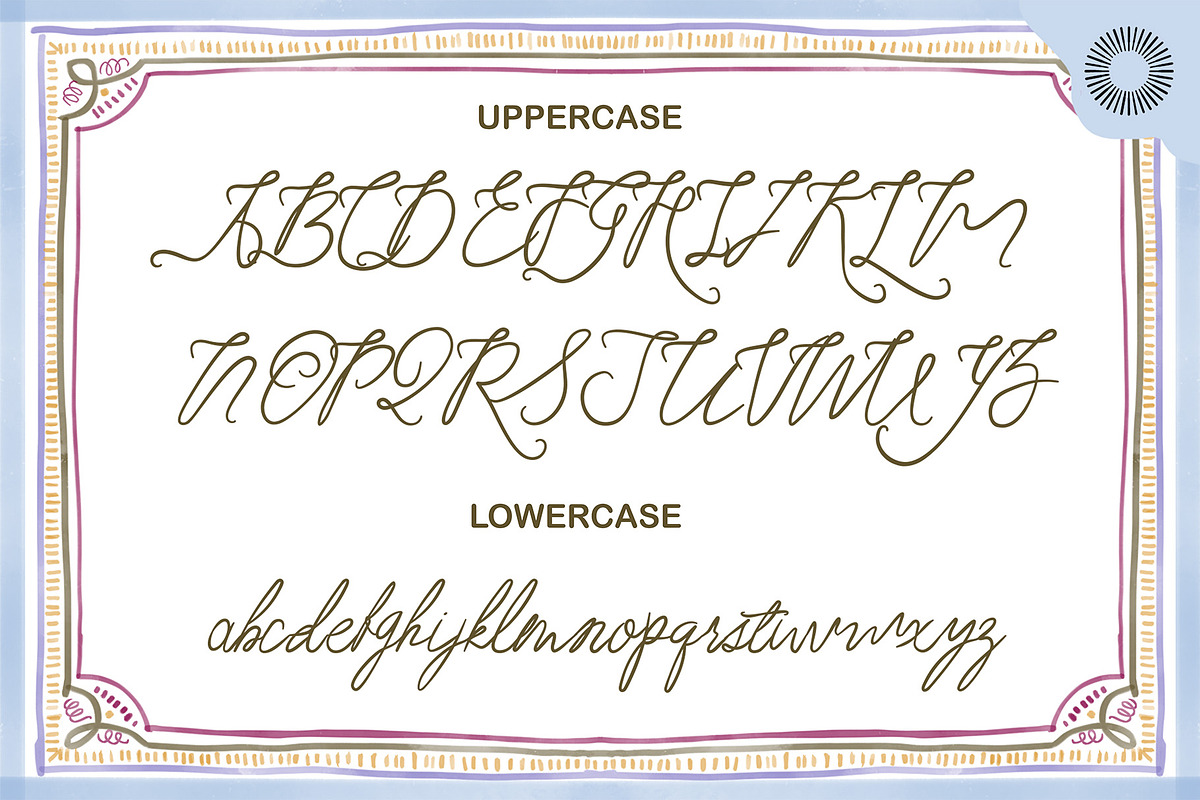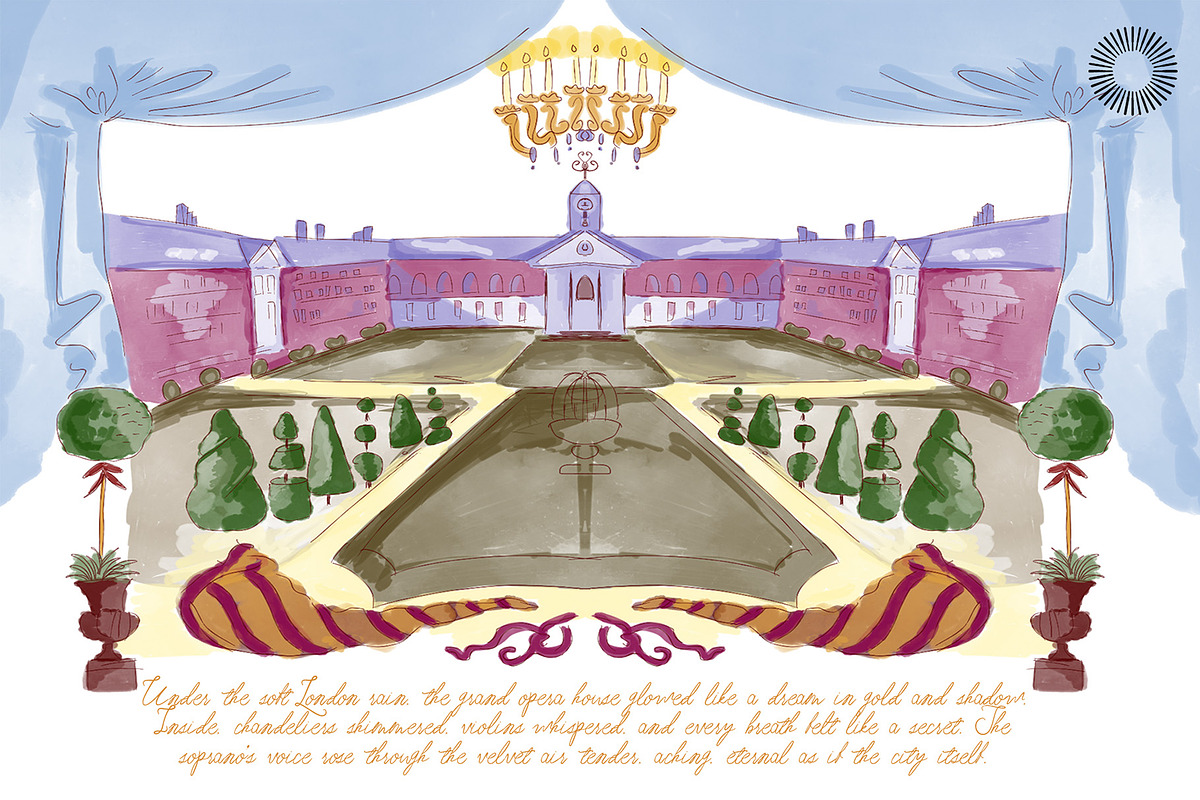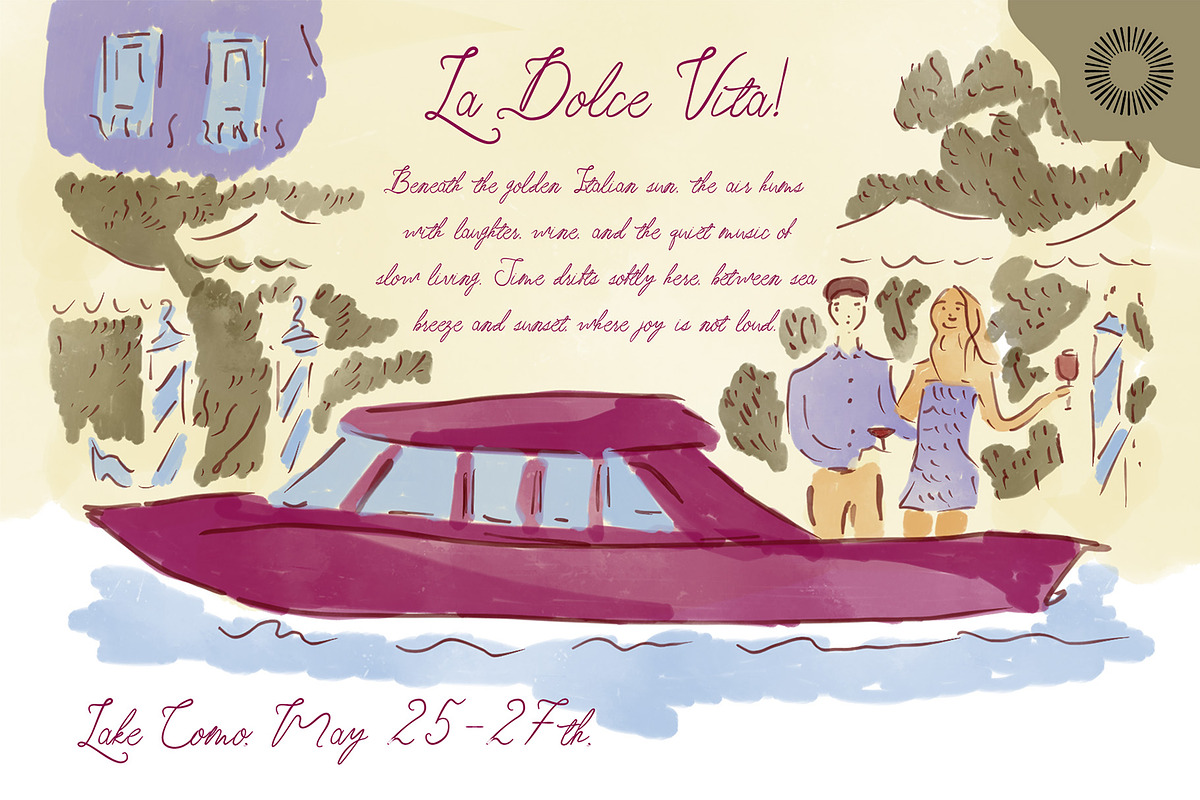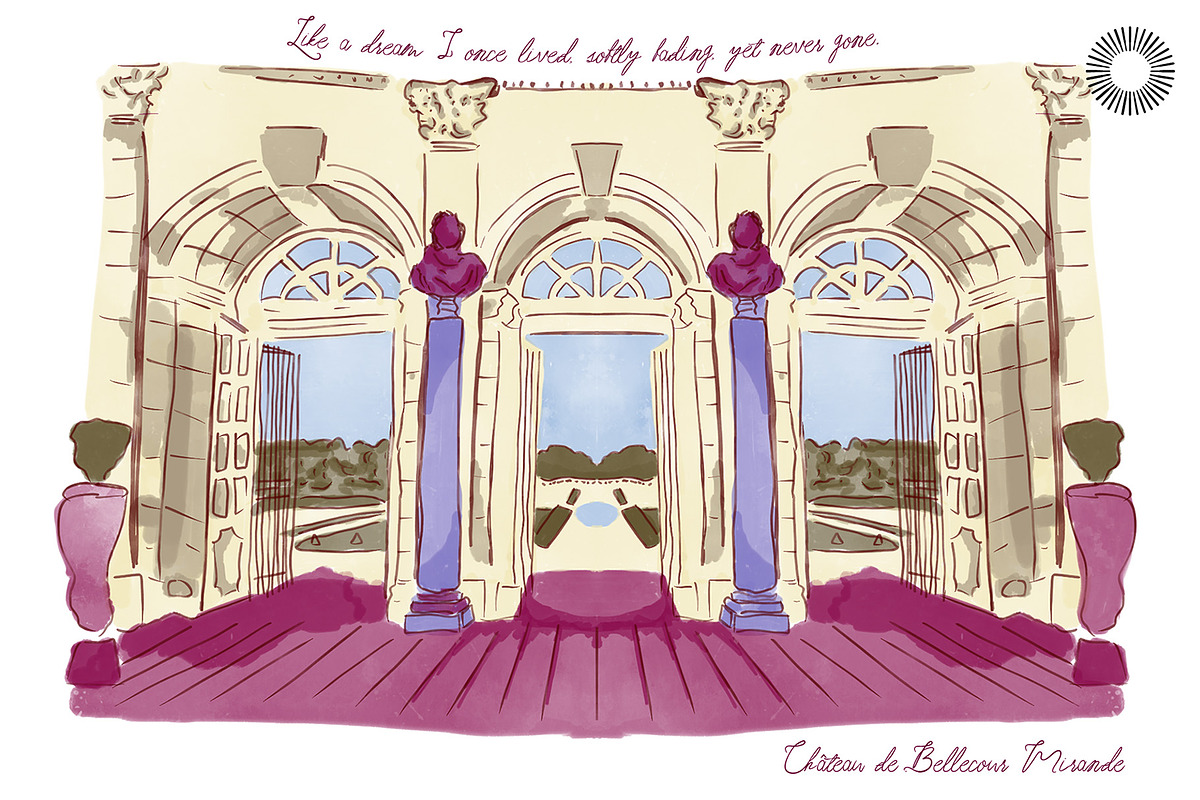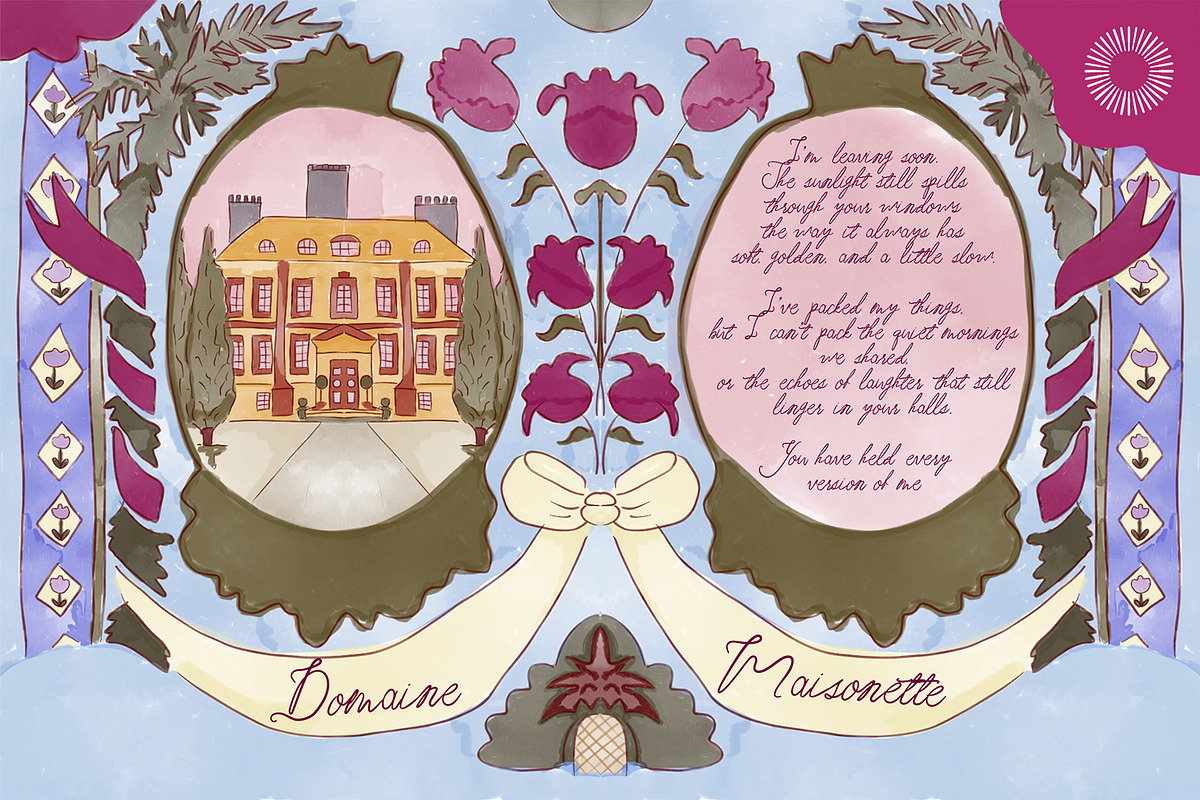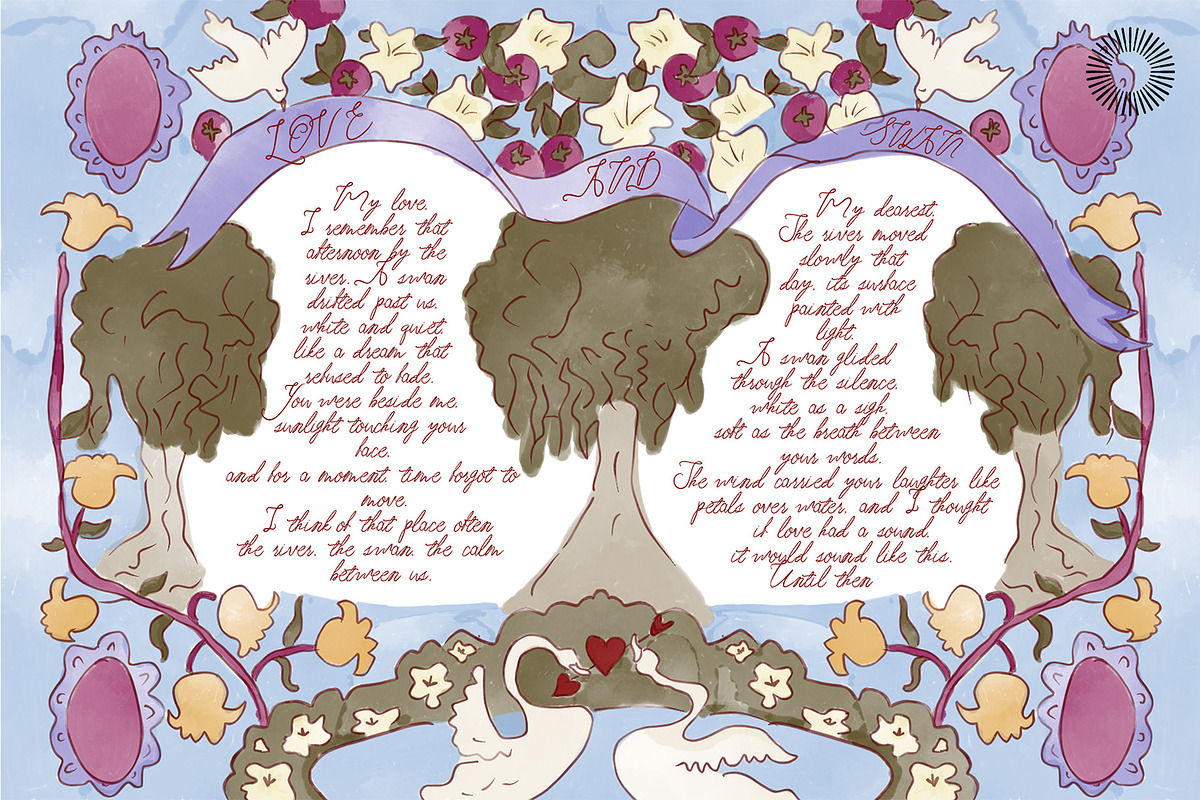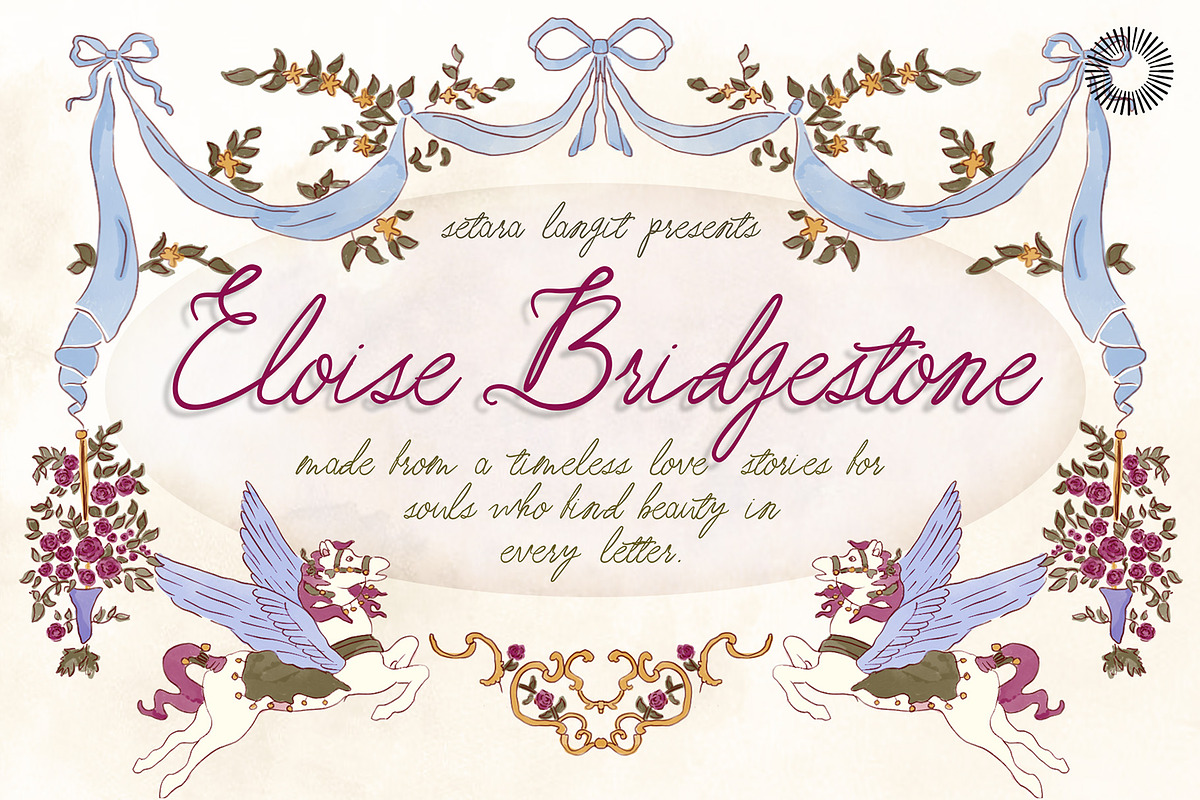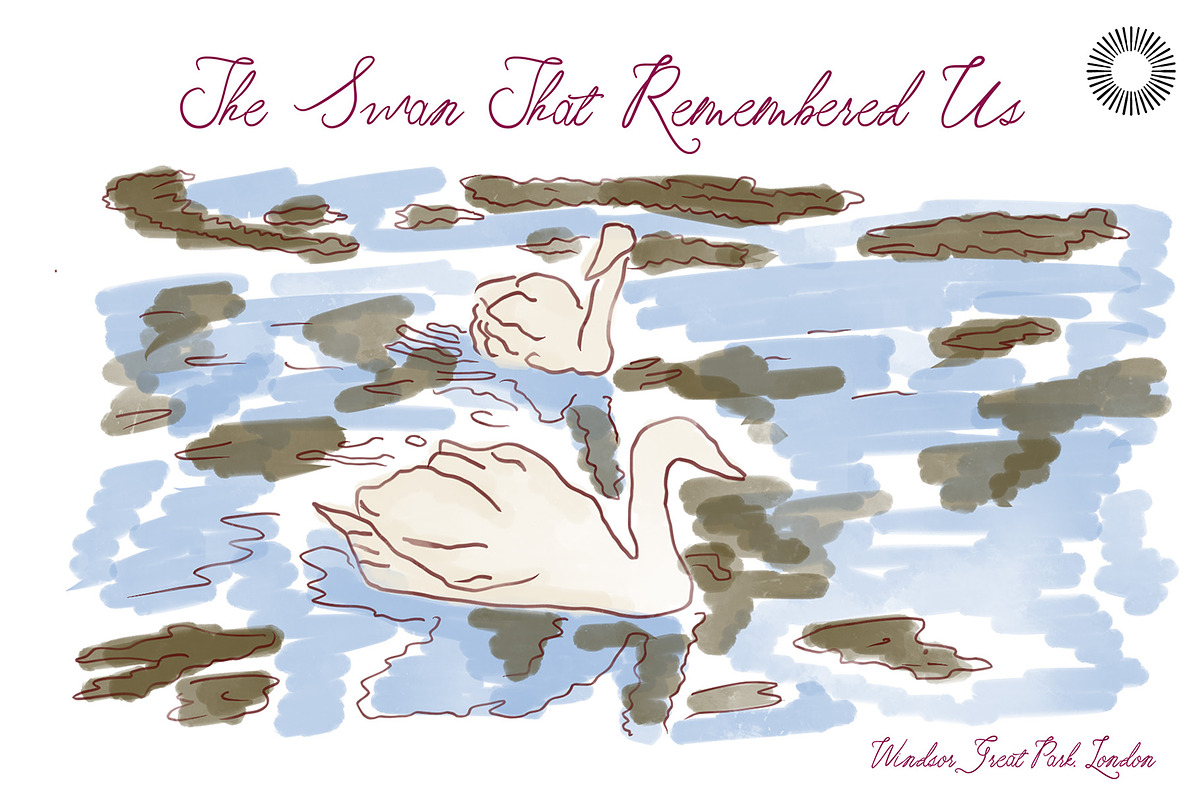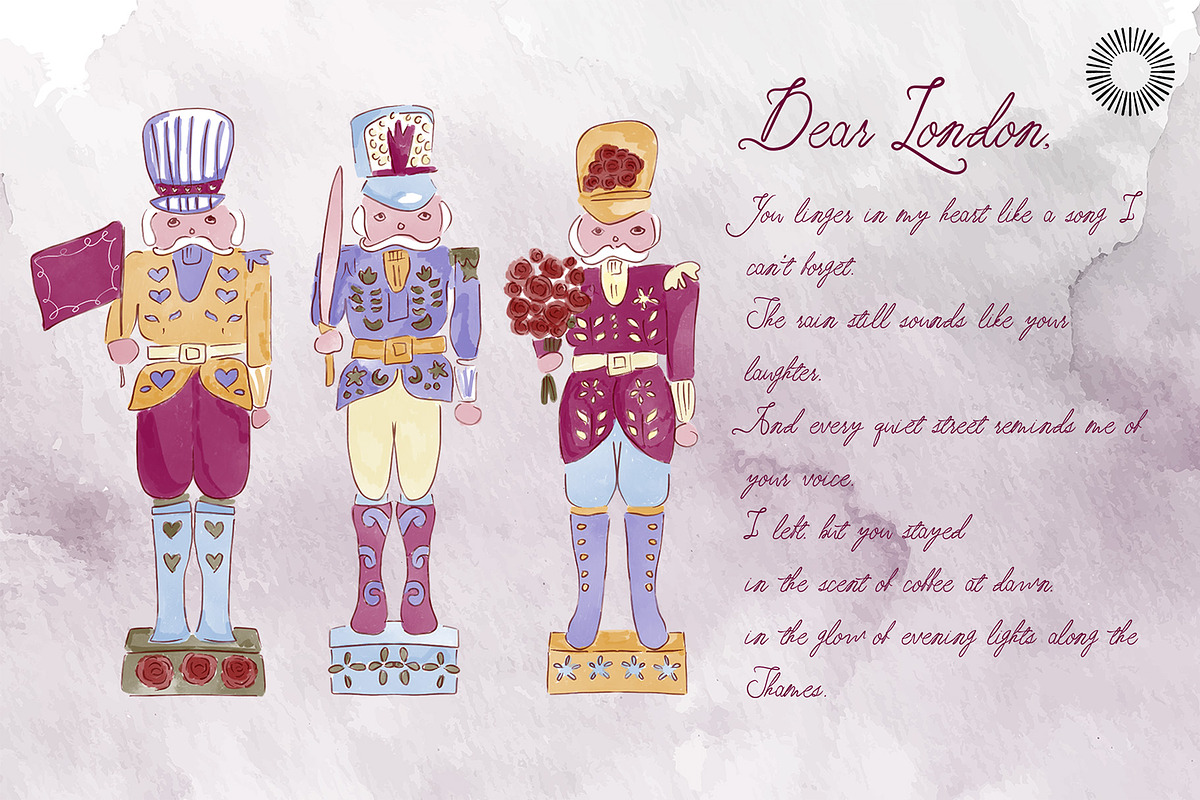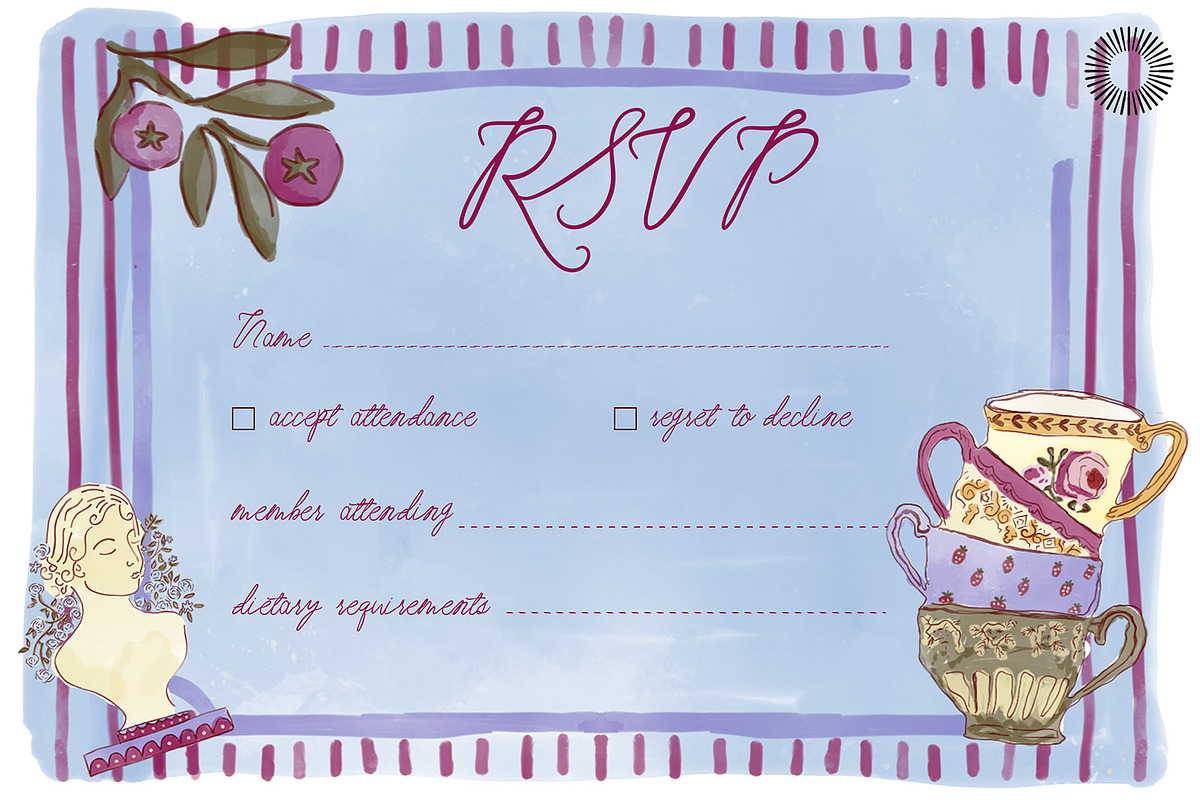
Eloise Bridgestone - Love letter
Eloise Bridgestone is a handwritten script that captures the tender charm of a love letter sealed with timeless affection. Each curve flows gracefully, like ink tracing emotions onto aged paper — soft, expressive, and endlessly romantic. Inspired by vintage calligraphy and intimate correspondence, Eloise Bridgestone evokes the feeling of nostalgia and sincerity, perfect for wedding stationery, personal letters, poetry, and brand designs that speak from the heart. Its fluid strokes and elegant rhythm bring a human warmth that digital text often forgets, reminding us that every word can still carry a heartbeat.